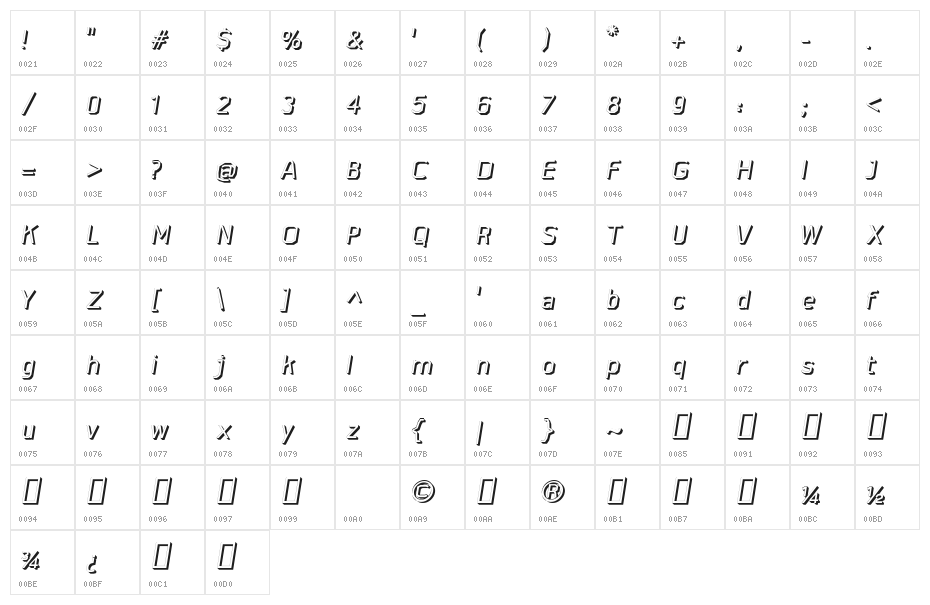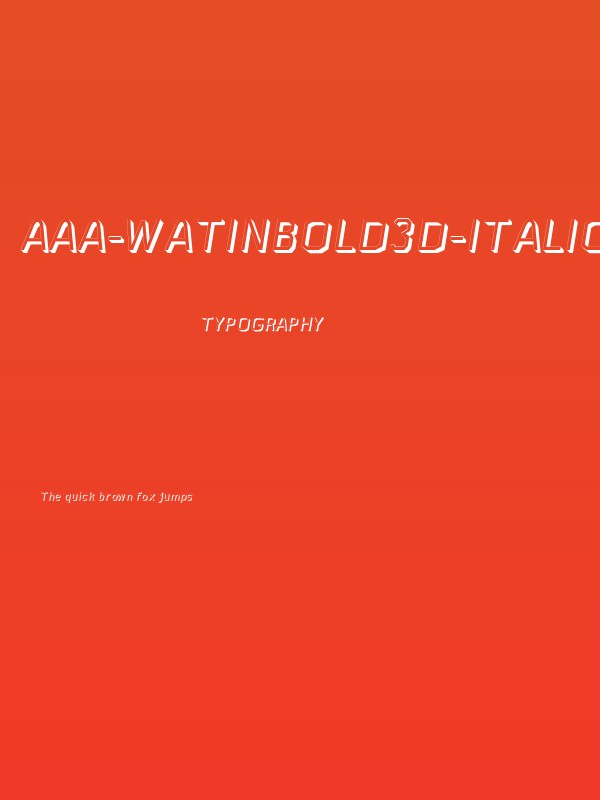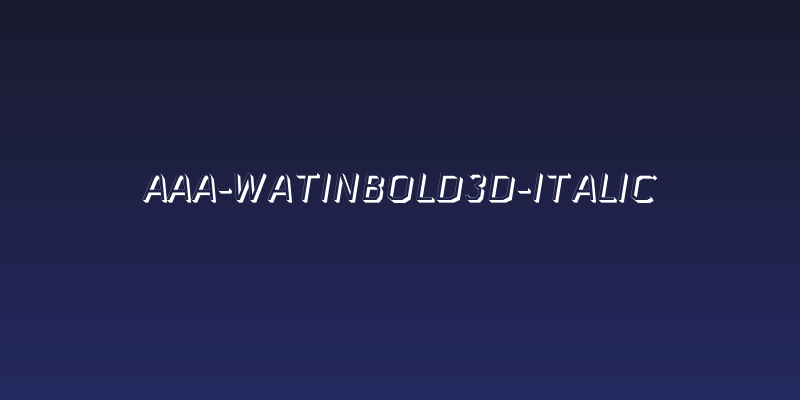
AAA-WatinBold3D-Italic Font
AAA-WatinBold3D-Italic Description
This font features a bold, three-dimensional appearance with italicized characters, giving it a dynamic and modern look. The letters are outlined with a shadow effect, creating a sense of depth and movement. The uppercase and lowercase letters maintain a consistent style, with clean lines and sharp angles. The numerals and special characters follow the same design principles, ensuring uniformity across all glyphs. This font's unique 3D effect makes it stand out, ideal for eye-catching designs.
| Proposed Projects | Ideal for posters, headlines, logos, and any design requiring a striking, modern aesthetic. |